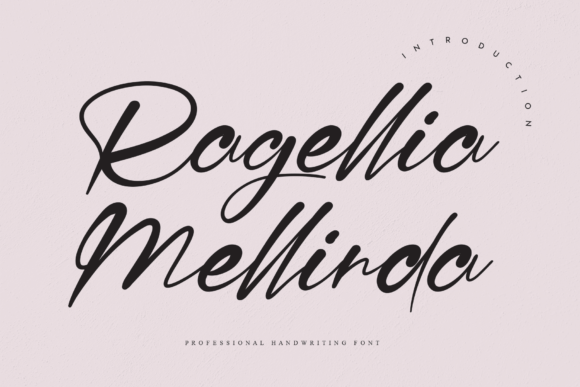
About Ragellia Mellinda Font
Ragellia Mellinda feels equally unique and distinct. It looks lovely on wedding invitations, thank you cards, quotes, greeting cards, logos, business cards and every other design which needs a handwritten touch.